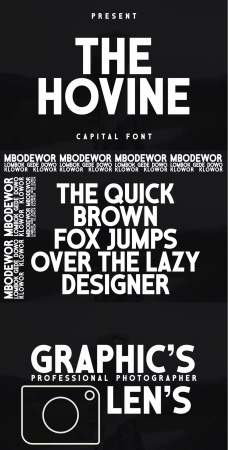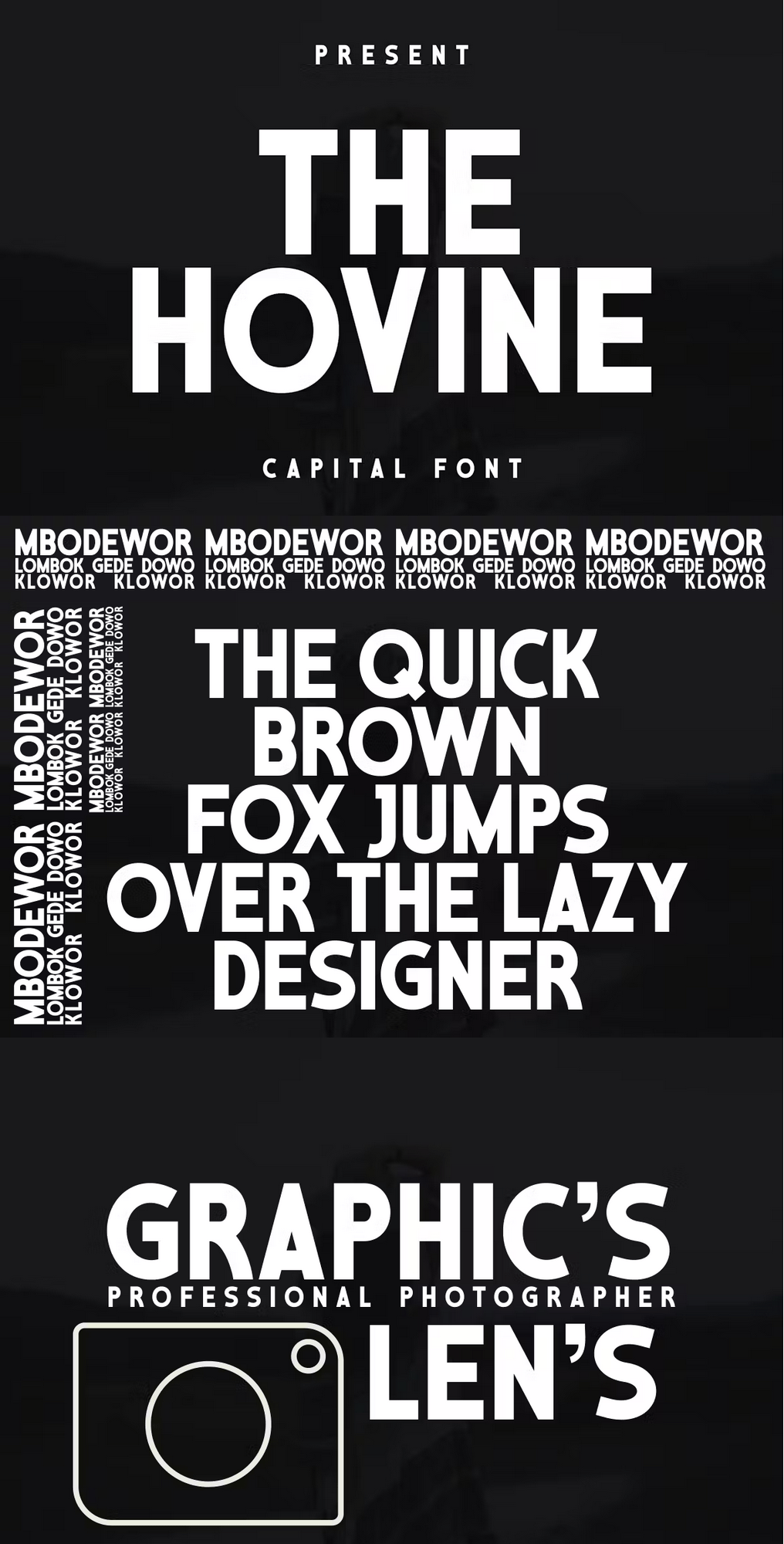
EE - The Hovine Font BQPK7NK
Introducing Expressive Camera, a uniquely designed font that harmoniously combines sturdy upper case letters. Specifically curated for creative artists, this typography merges flawlessly into the photography universe - it strikes an ideal harmony between sophistication and clarity. With Expressive Camera, your words grasp the polished edge, precision and creative flair akin to a photographer's perception. Transform your photographic stories with our typeface that splendidly embodies the essence of the realm of apertures and lenses.